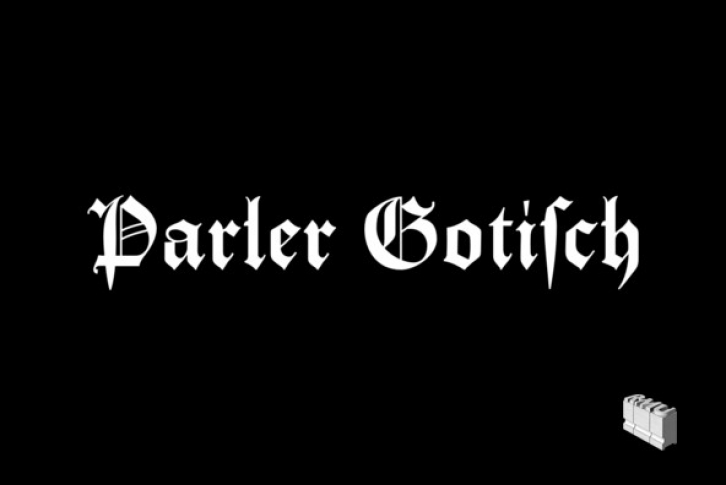
A gothic blackletter font named after the Parler master builder family which built the Schwaebisch Gmuend cathedral. This font contains a bunch of useful ligatures, and by typing ‘N’, ‘r’ and period or ‘N’, ‘o’ and period plus activating the discretionary ligatures you get an oldstyle numbersign. As usual in my blackletter fonts, the # key is occupied by the ‘round’ s.